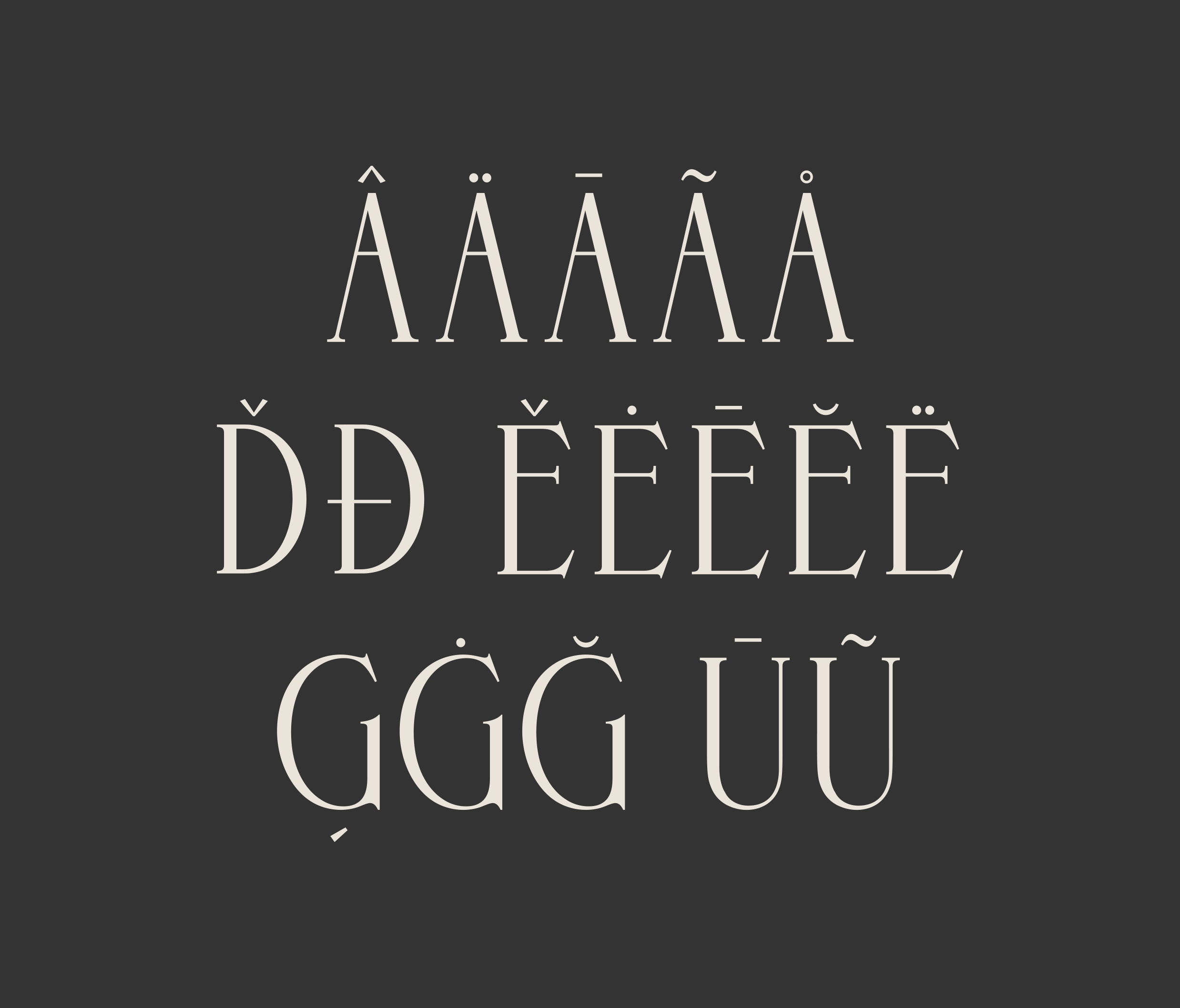
Concorde 2.0 is an elegant Contemporary serif display typeface that artfully blends influences from 1970s editorial typography with the sophisticated flair of the French Art Deco period. Concorde bridges the gap between high-contrast Modern serifs and the more restrained Transitional styles, drawing inspiration from classic French typography, with a softer, more romantic interpretation.
The typeface's distinctive personality emerges through its thoughtfully designed alternate characters, which introduce subtle curves and flourishes to the traditional forms without compromising its core elegance. Notable features include the graceful alternate 'A' with its curved left stem and the swash-like “e”, bringing a hint of calligraphic flair and decorative elegance to the otherwise traditional structure. This system of alternates, influenced by the expressive display types of the 1970s and early 1980s, and controlled flourishes from French Art Deco posters, provides designers with the flexibility to shift between classical and more dramatic applications while maintaining sophistication. The result is a typeface that feels both historically informed and decidedly contemporary. Concorde excels in contexts where classical refinement meets contemporary utility. Its unique blend of 1970s editorial sophistication and French Art Deco flair makes it especially effective for projects requiring both elegance and creative flexibility.
CLASSIFICATION
Serif — Transitional/Modern
RELEASE
2020
VERSION
2.0
WEIGHTS
5 — Thin, Light, Regular, Medium, Bold
DESIGNER
Laura Bennett
Originally released in 2020 as a single weight, Concorde has been meticulously remastered and expanded in 2025 into a sophisticated five-weight family ranging from Thin to Bold. This comprehensive update introduces refined details, harmonized proportions, and an extensive character set that preserves the distinctive characteristics that make Concorde unique. Concorde includes comprehensive Latin language support, carefully crafted punctuation, and a range of OpenType alternates.